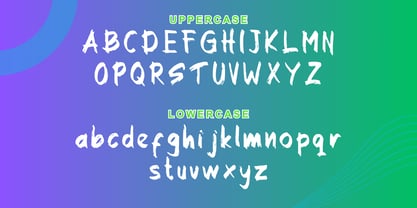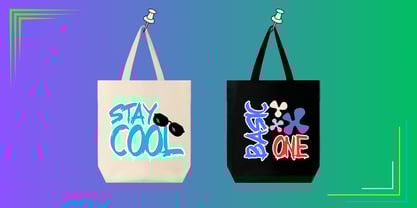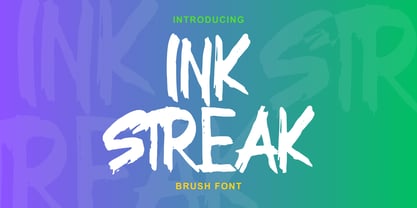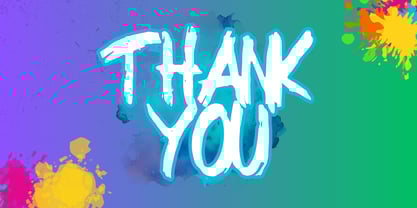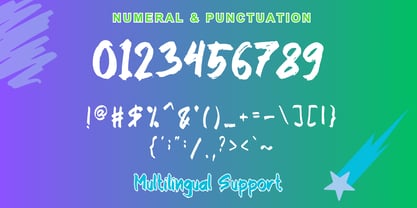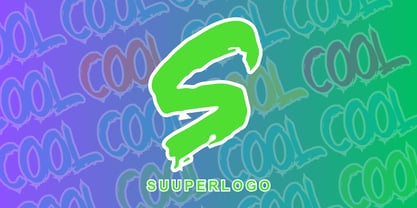
Ink Streak
by Andrey Font Design
The Ink Streak Font Family was designed by Stephanus Prabowo and published by Andrey Font Design. Ink Streak contains 2 styles and family package options.
It is introducing the one-of-a-kindigned to inject an innovative, relaxed, and bespoke vibe into your designs. Harness its power to craft uniquely dynamic and organic visuals perfect for various design purposes. This attractively versatile font stands out as an exceptional choice for a multitude of applications, from creating eye-catching logos, compelling posters, and heartwarming greeting cards, to imaginative mockup t-shirts. Experience its inherent charm that adds a breath of fresh air and an earthy feel to your design projects.